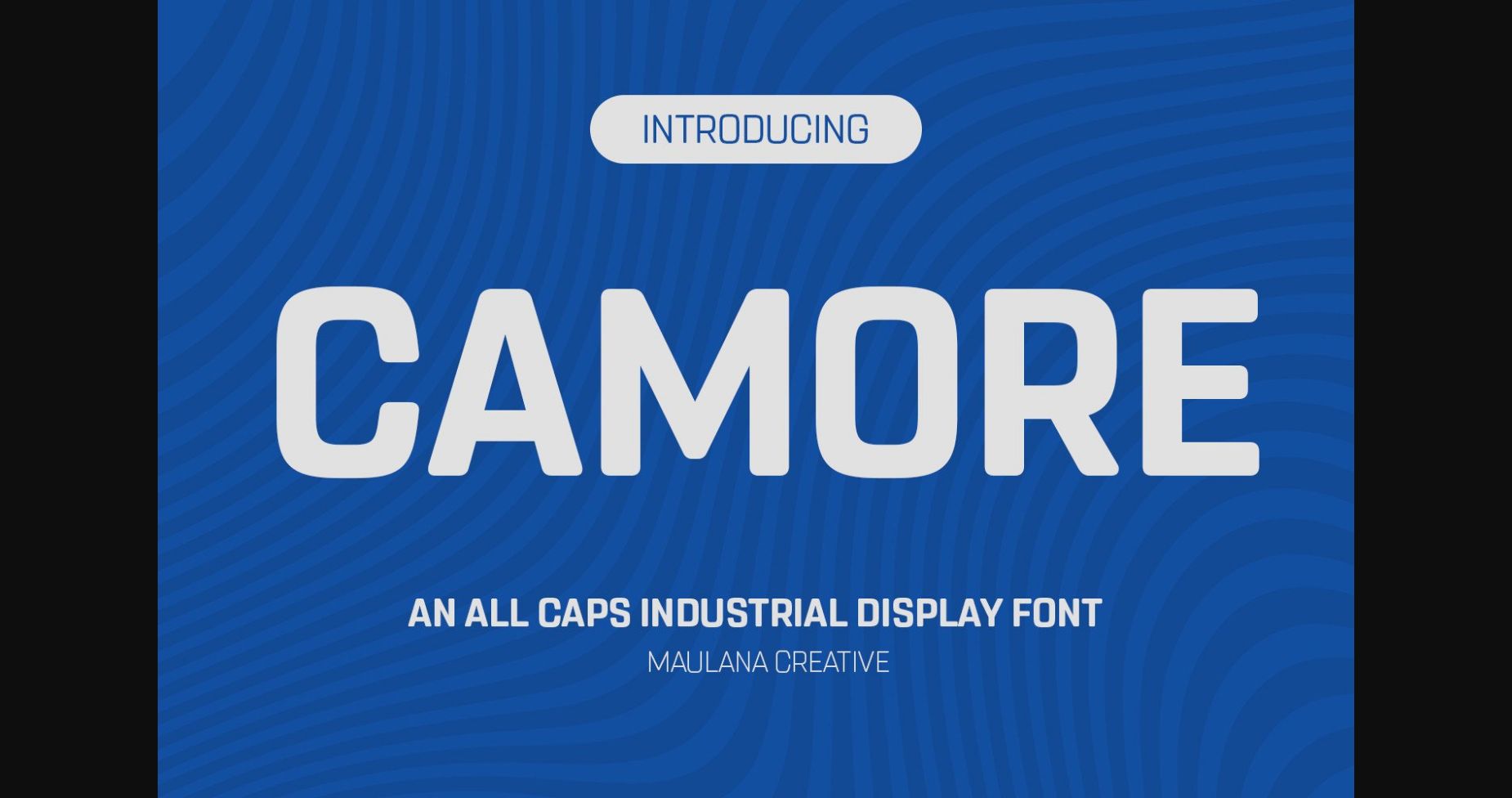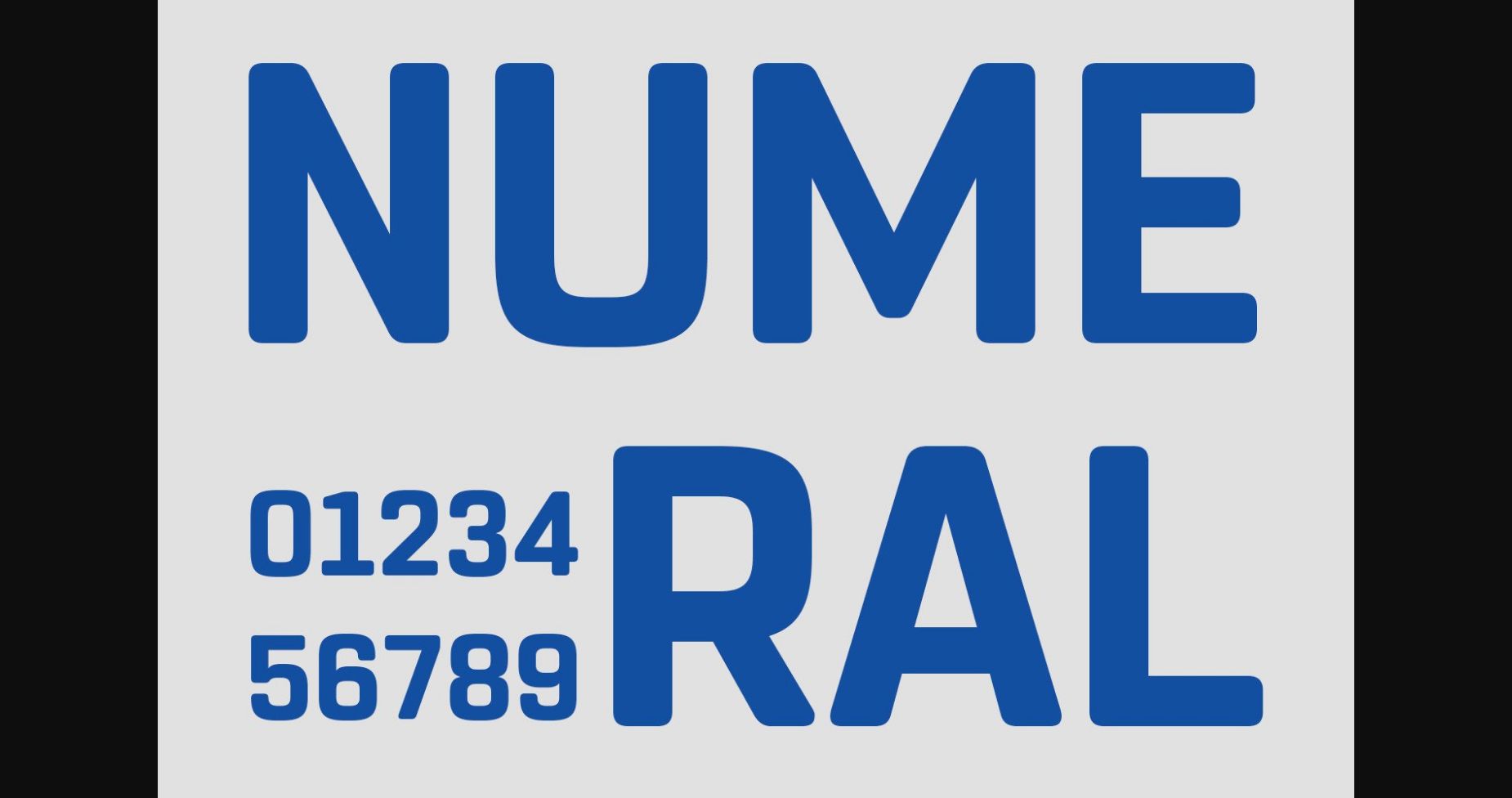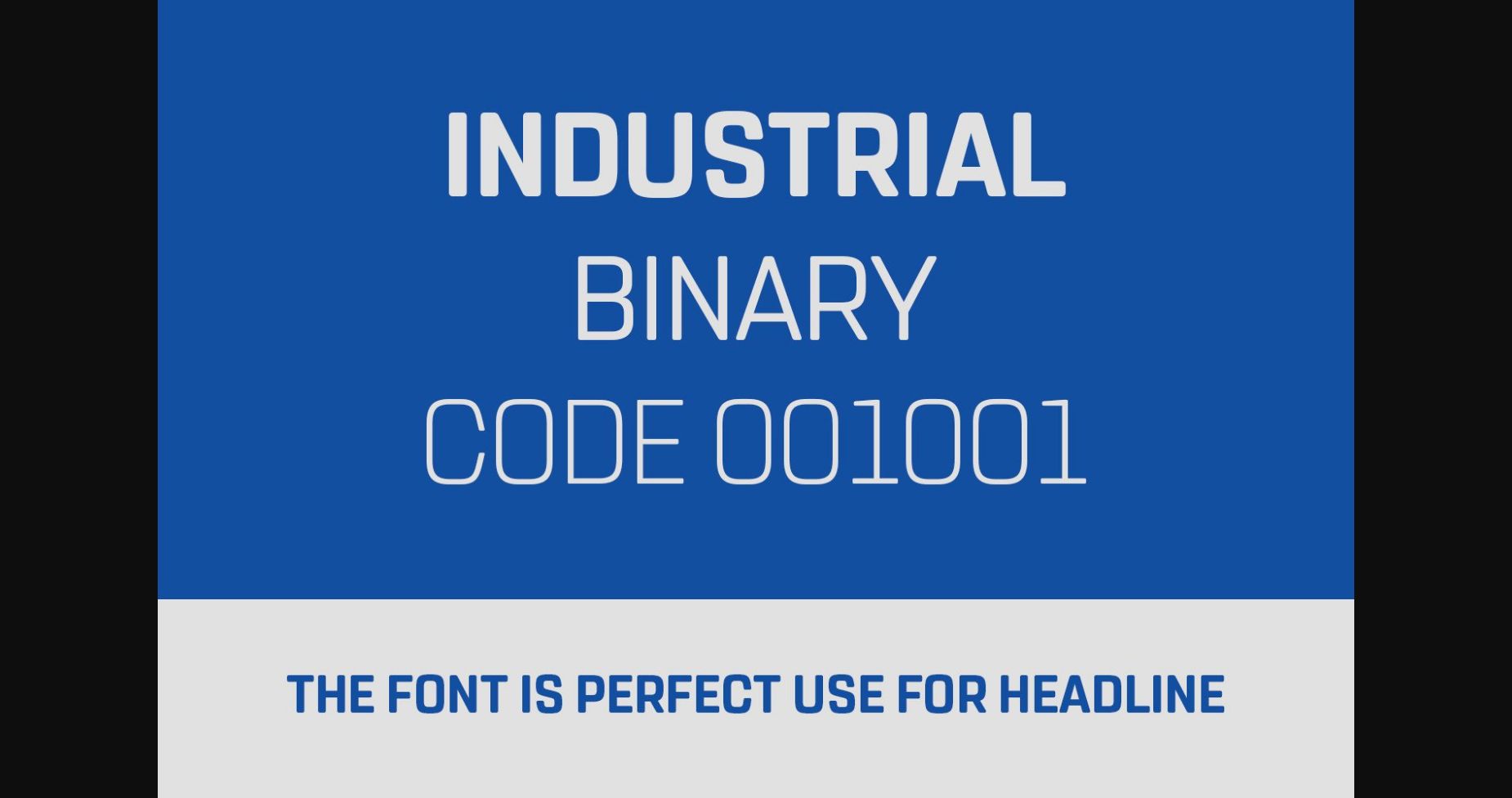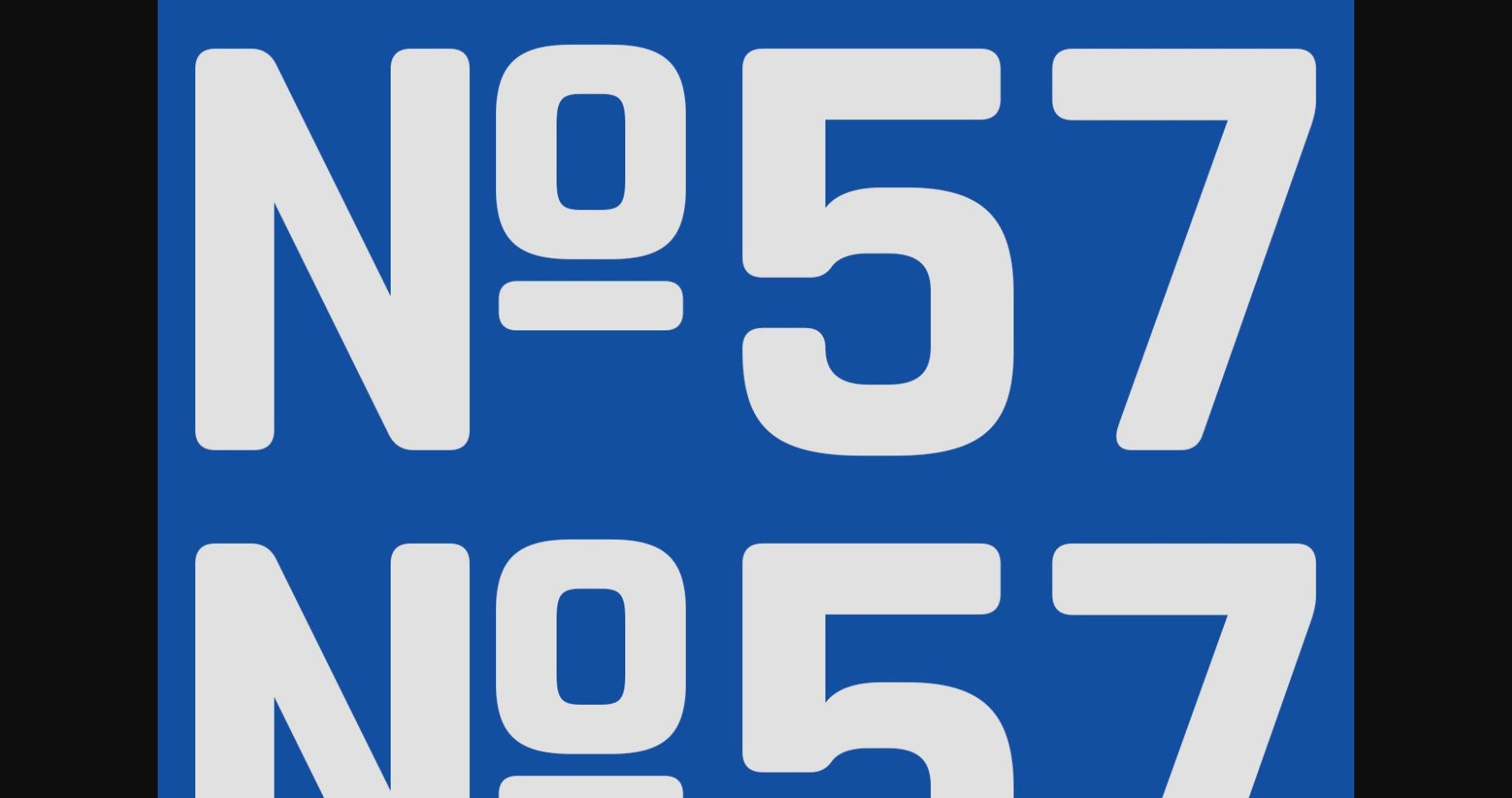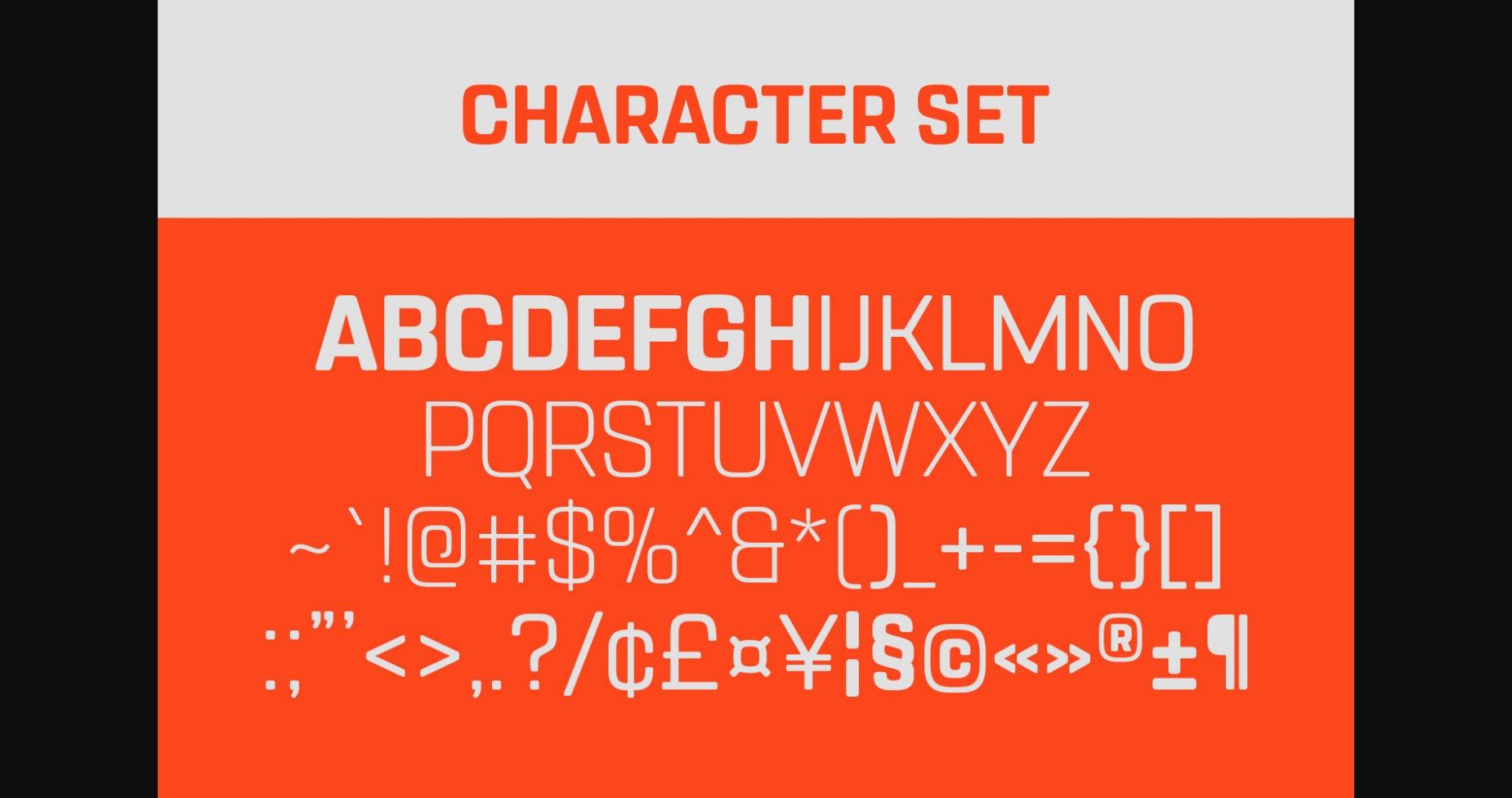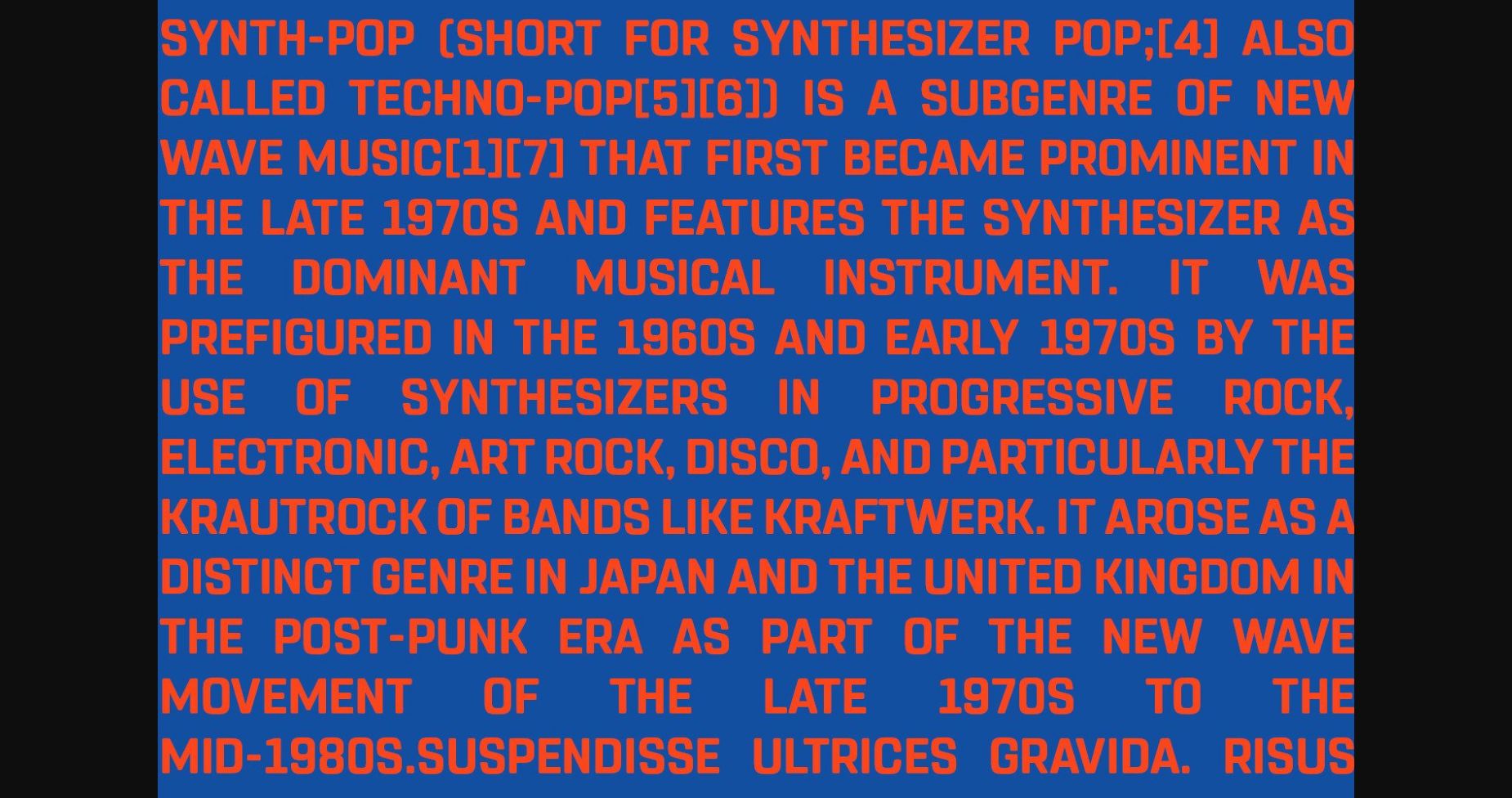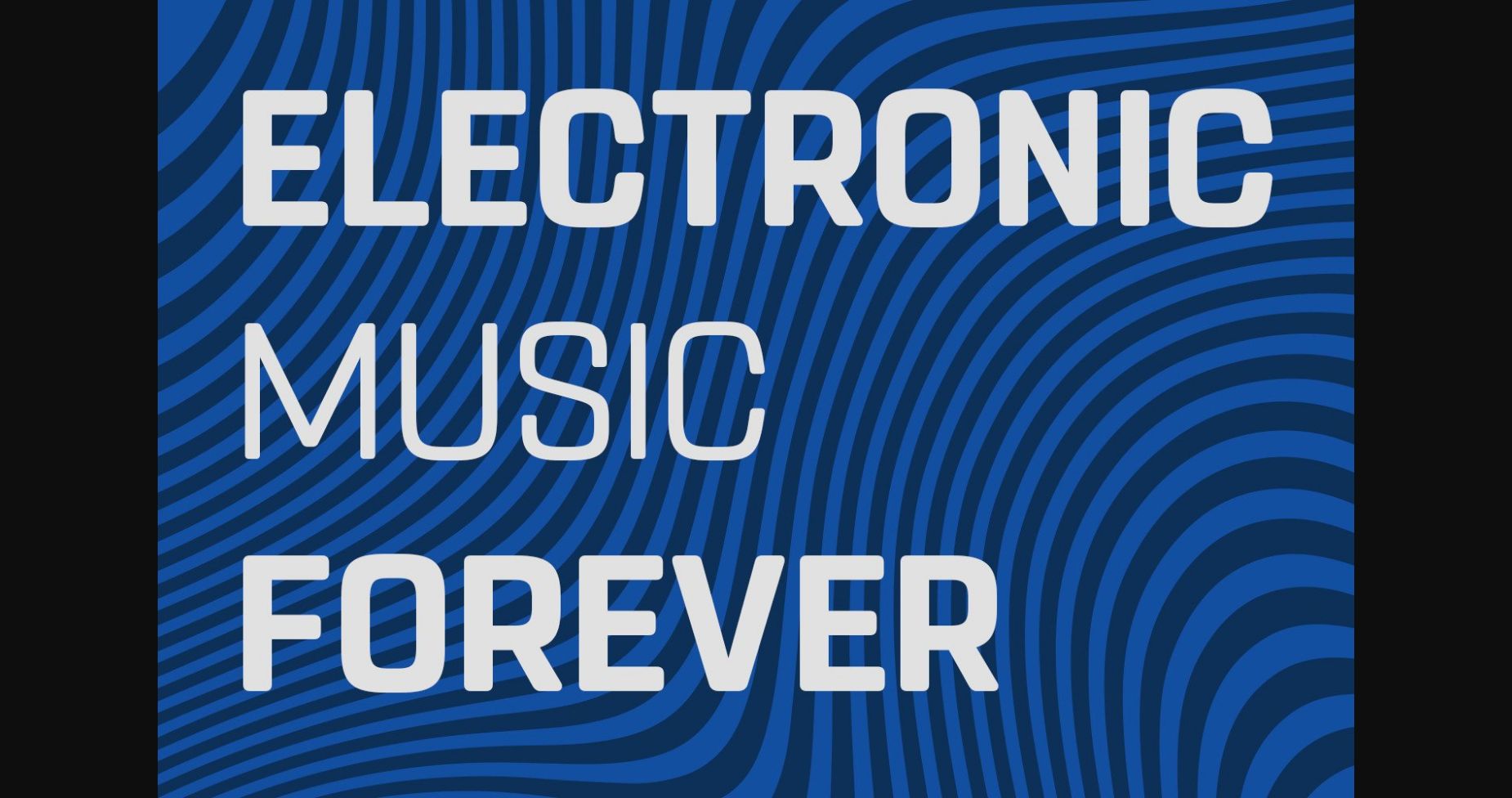
About Camore Font
Camore is a cool and unique all-caps sans serif font. No matter the topic, this font will be an incredible asset to your fonts’ library, as it has the potential to elevate any creation.